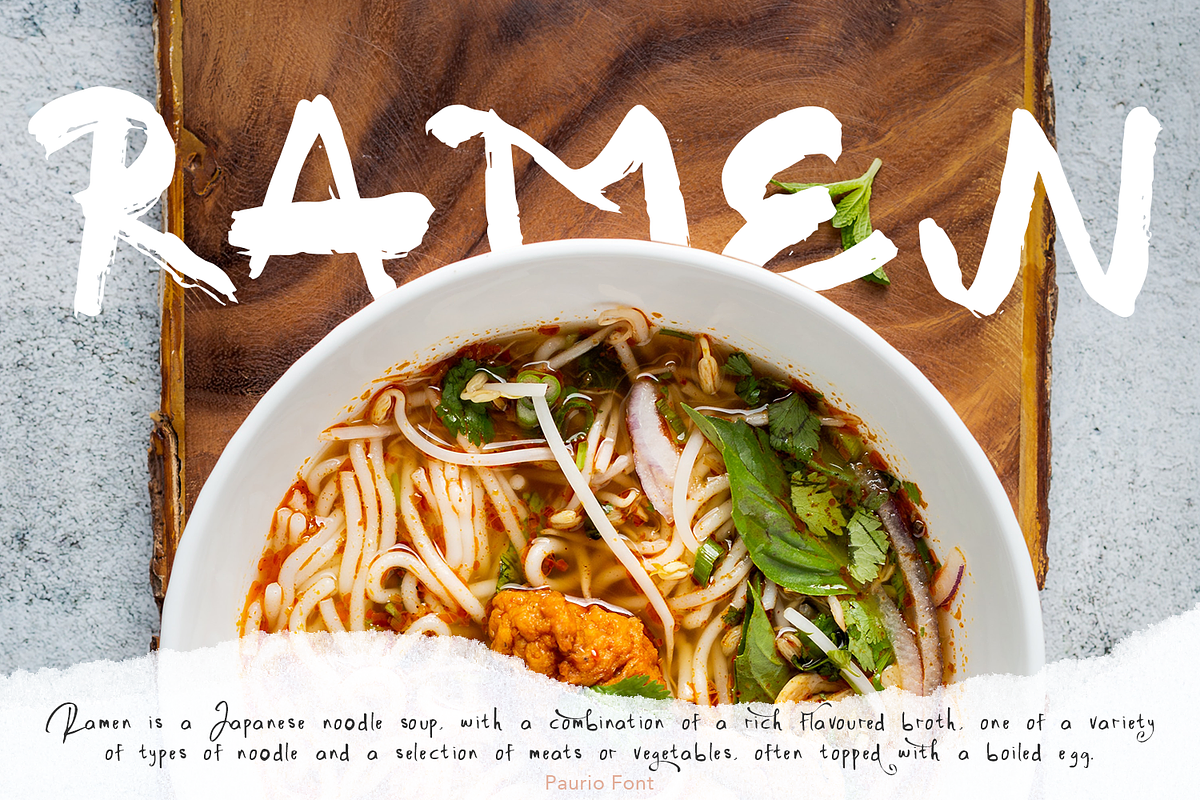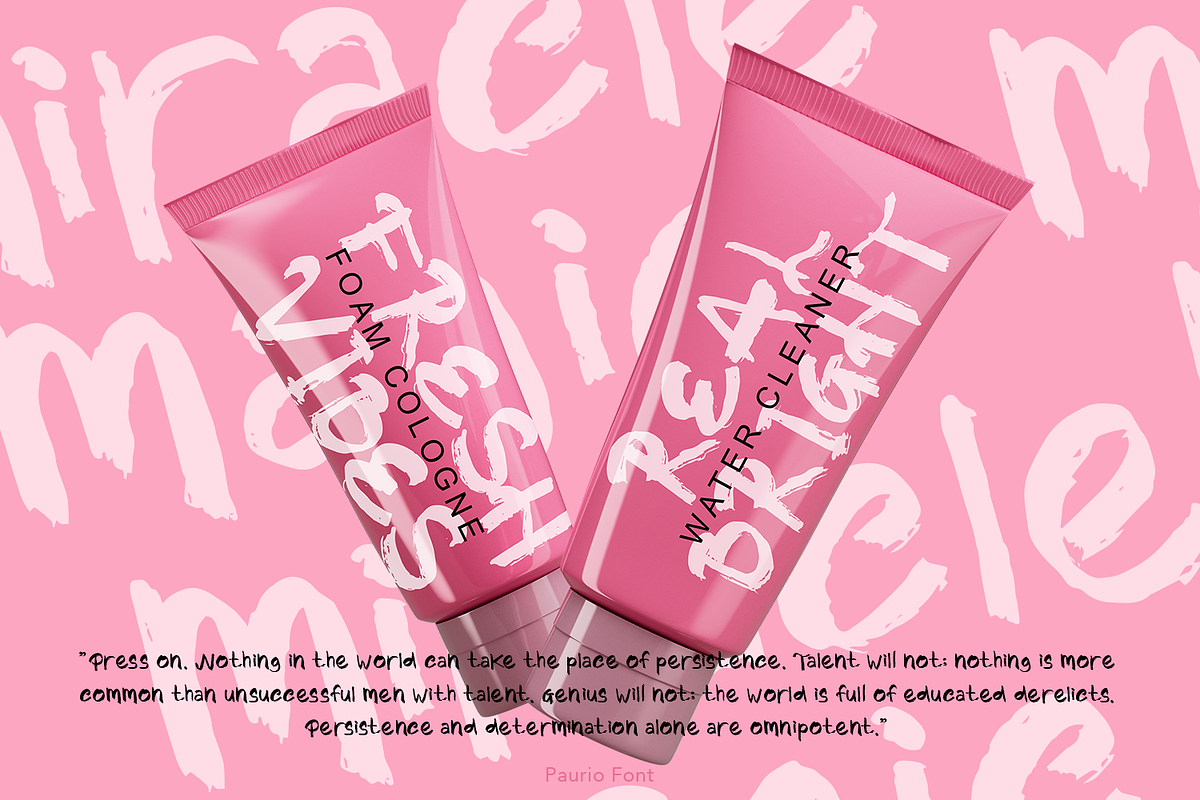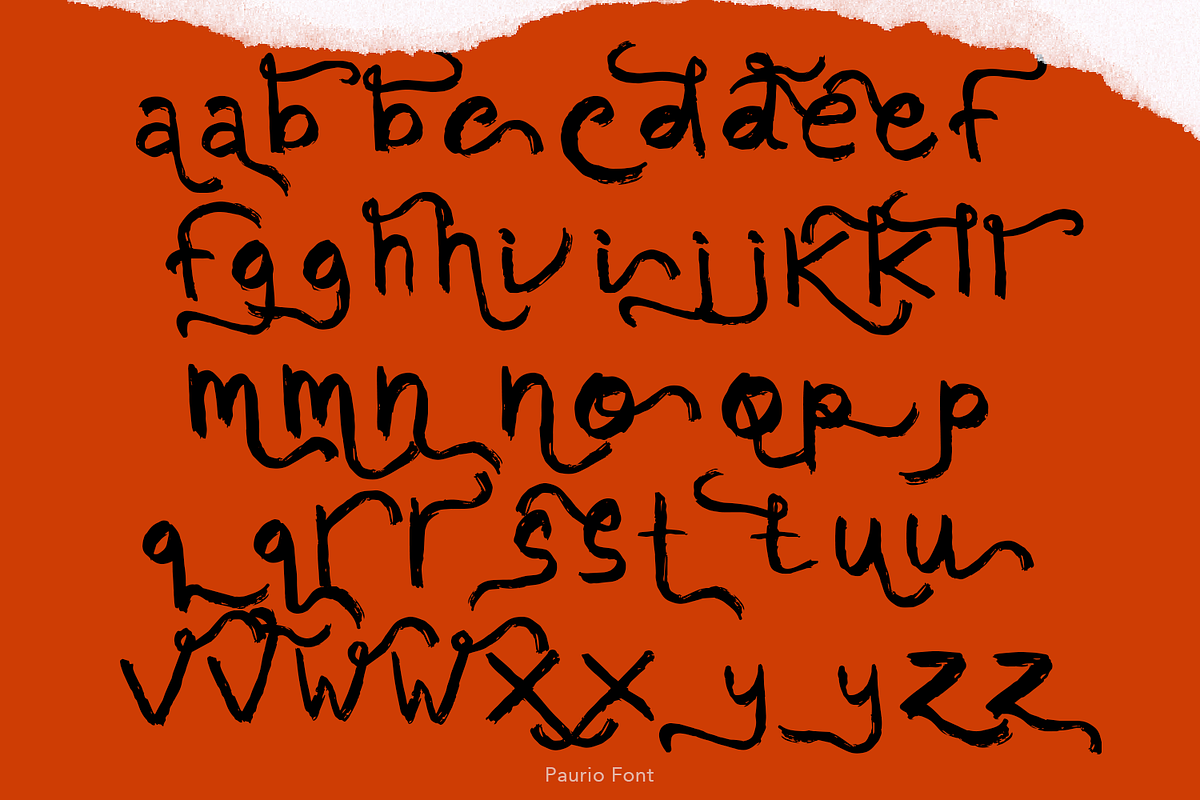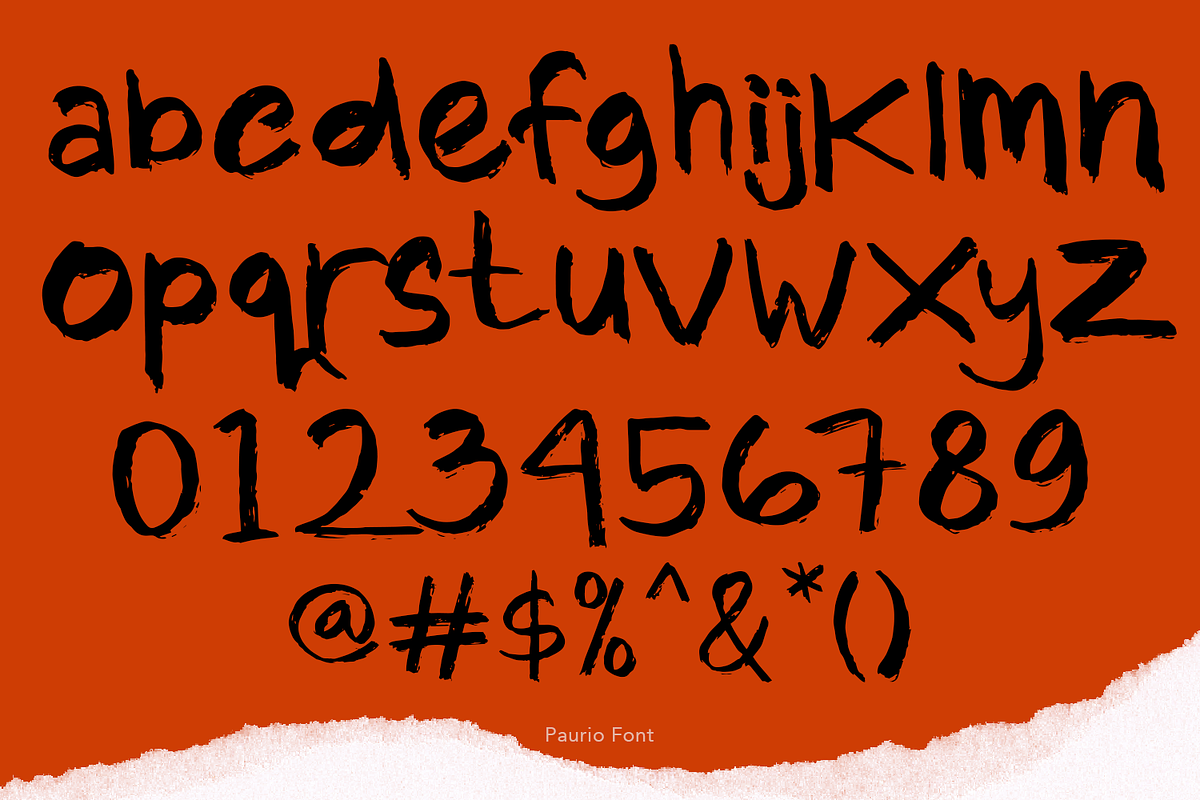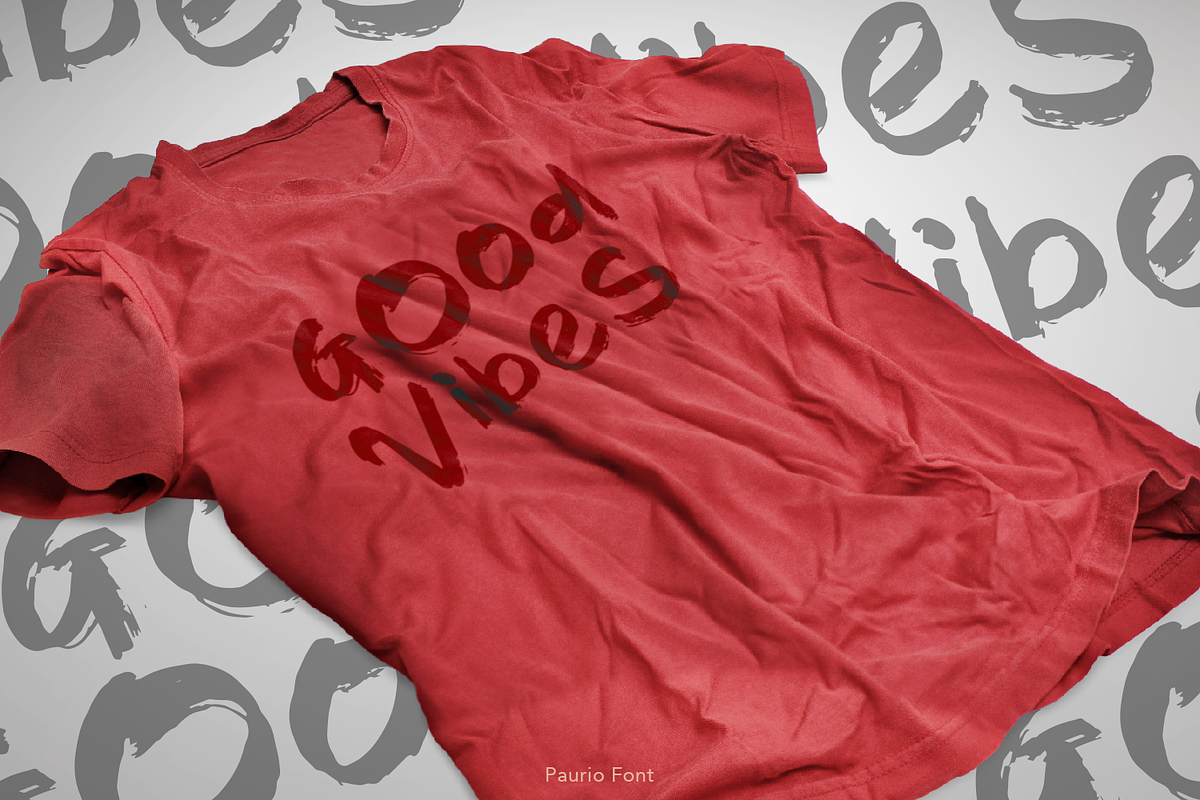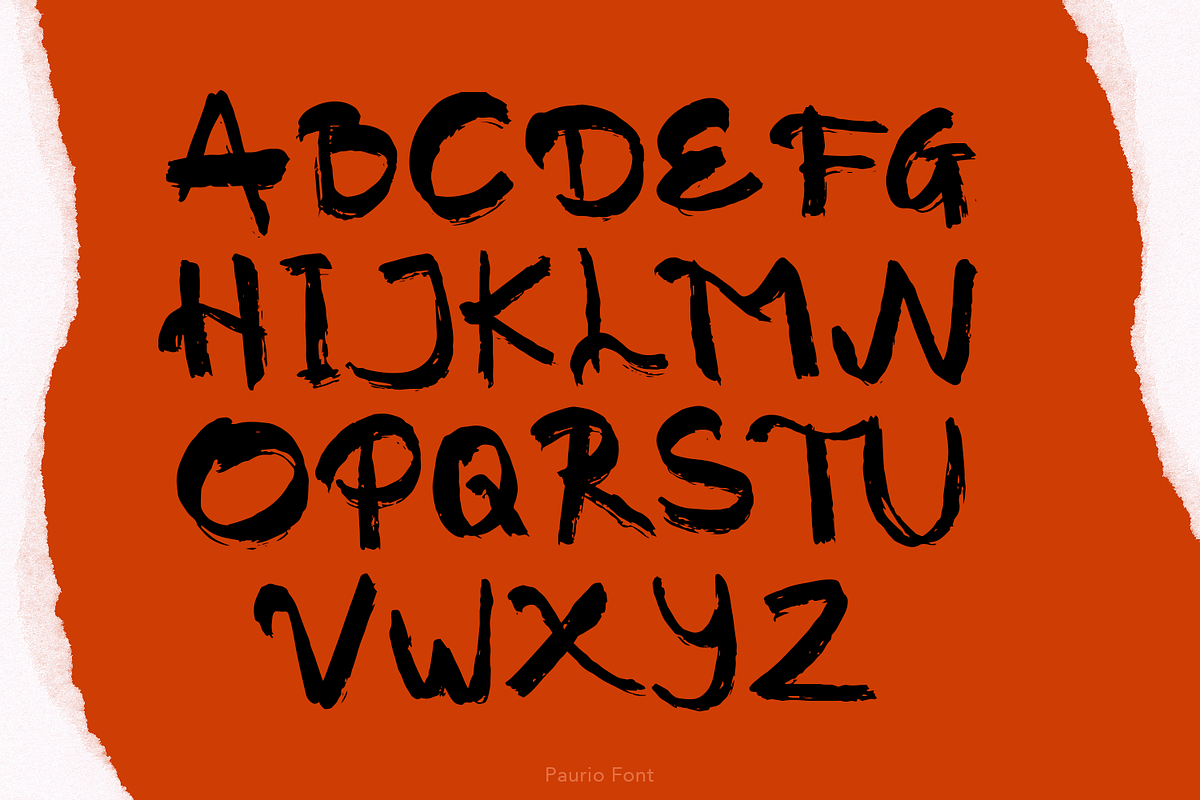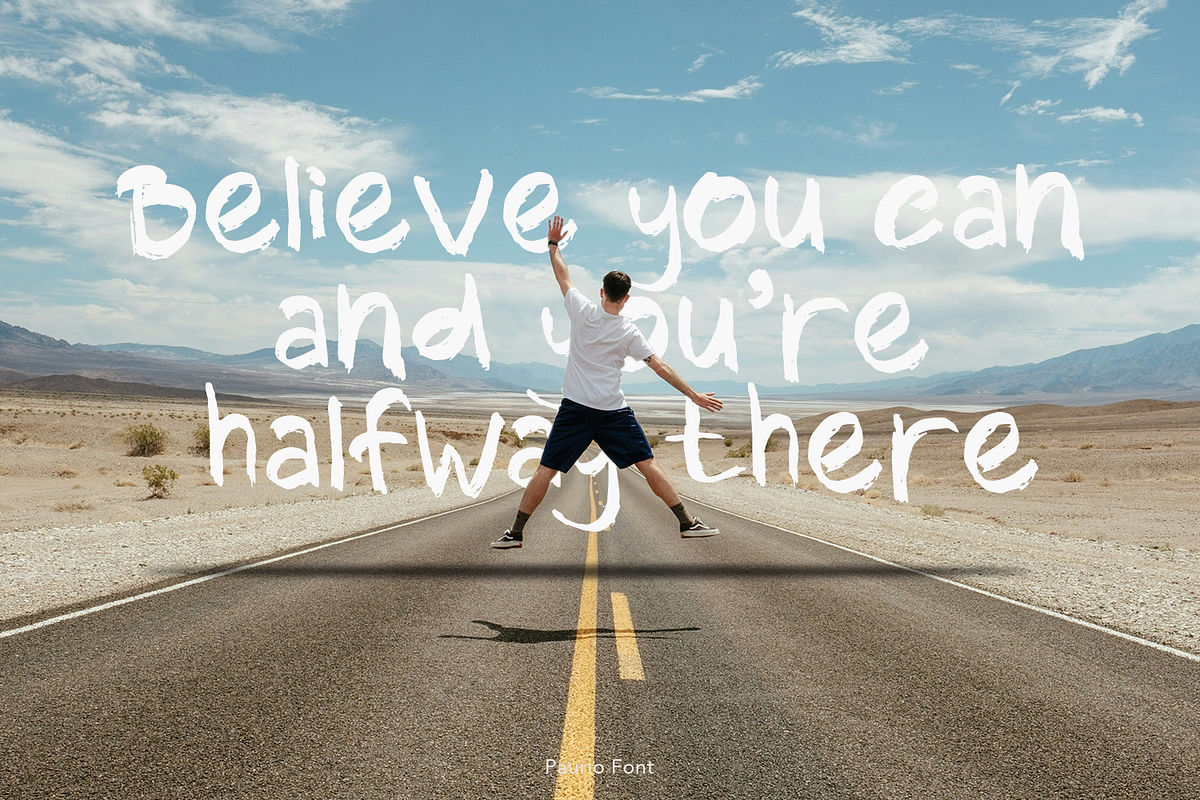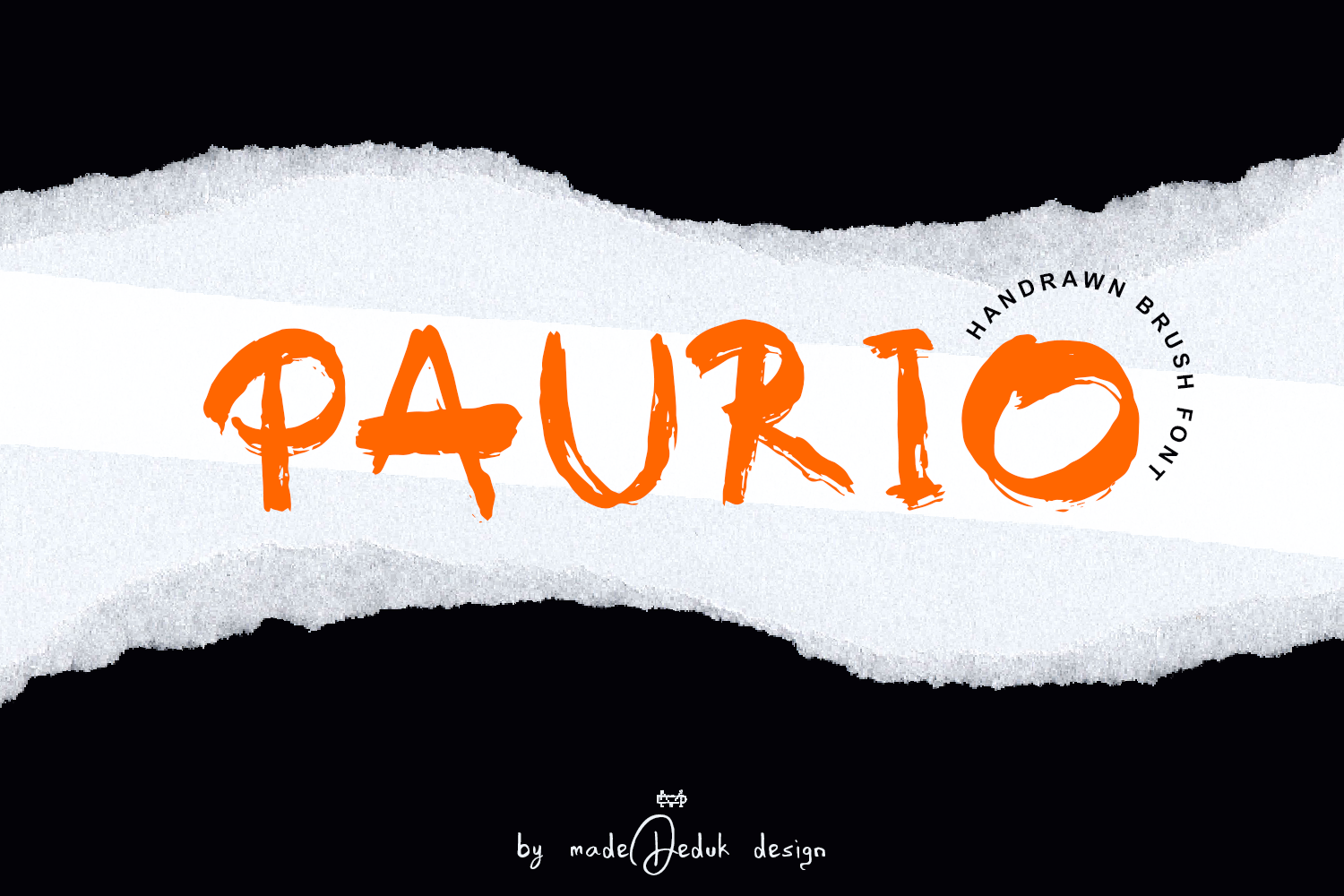
Paurio Brush Font
Really excited to introduce Paurio is a realistic brush font! Come with much alternative and this font perfect for poster design, book covers, merchandise, fashion campaigns, newsletters, branding, advertising, magazines, greeting cards, album covers, and quote designs and more.